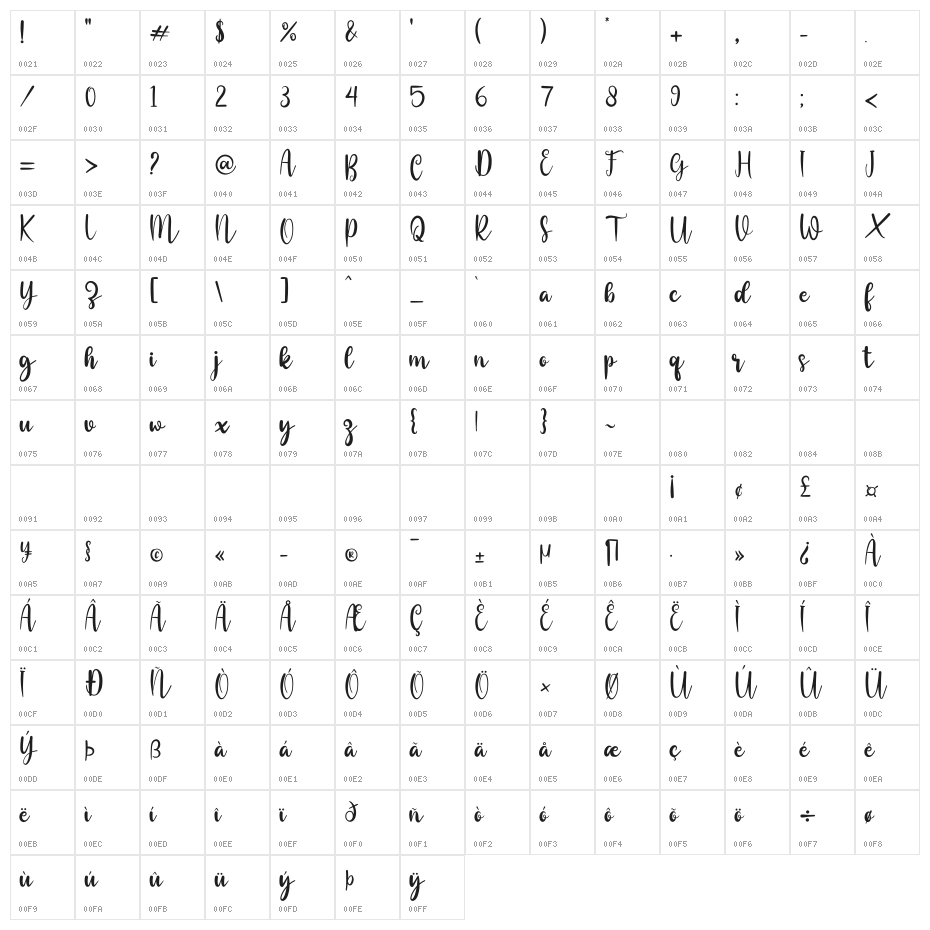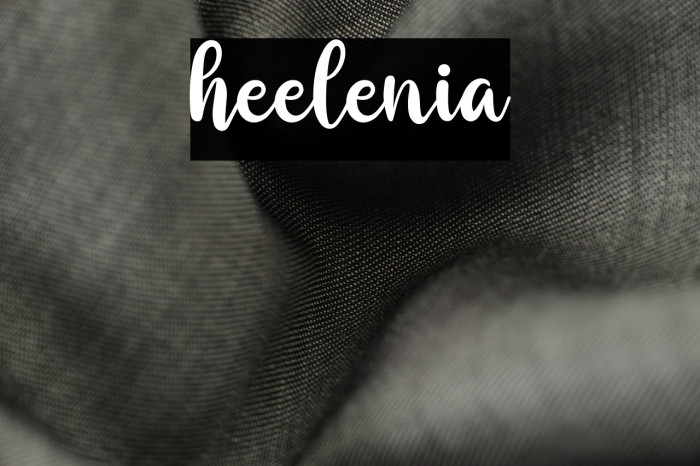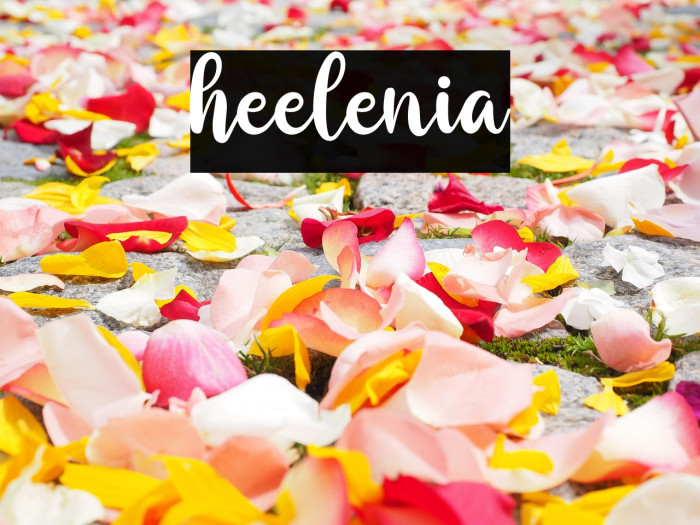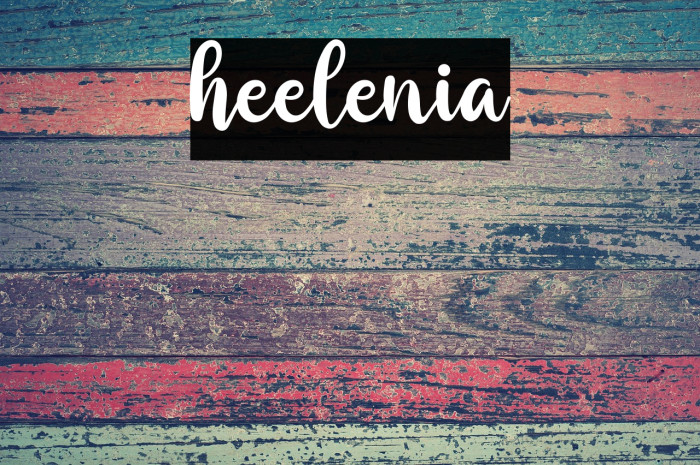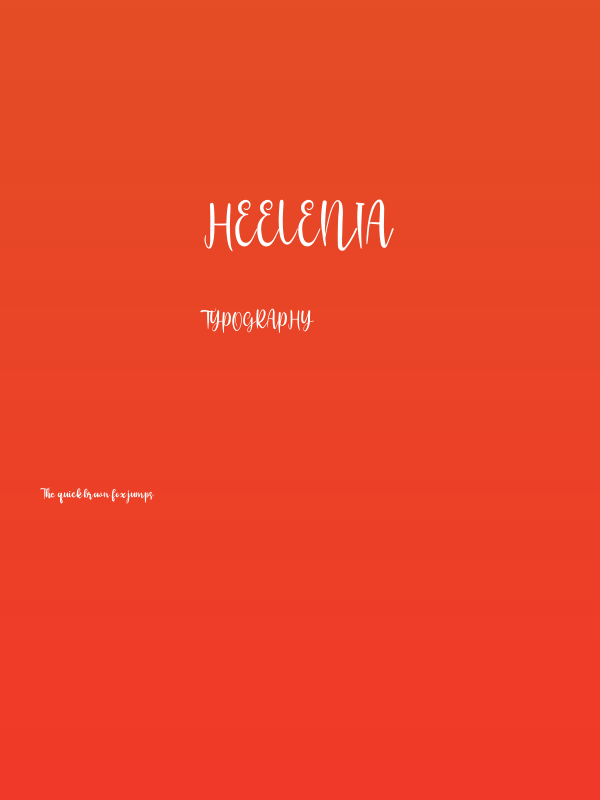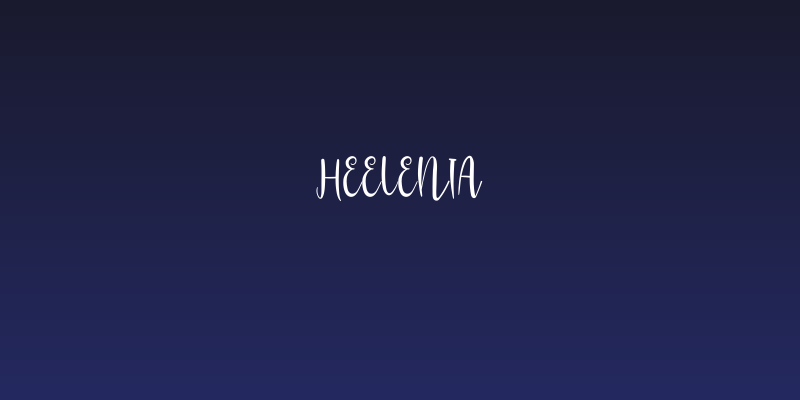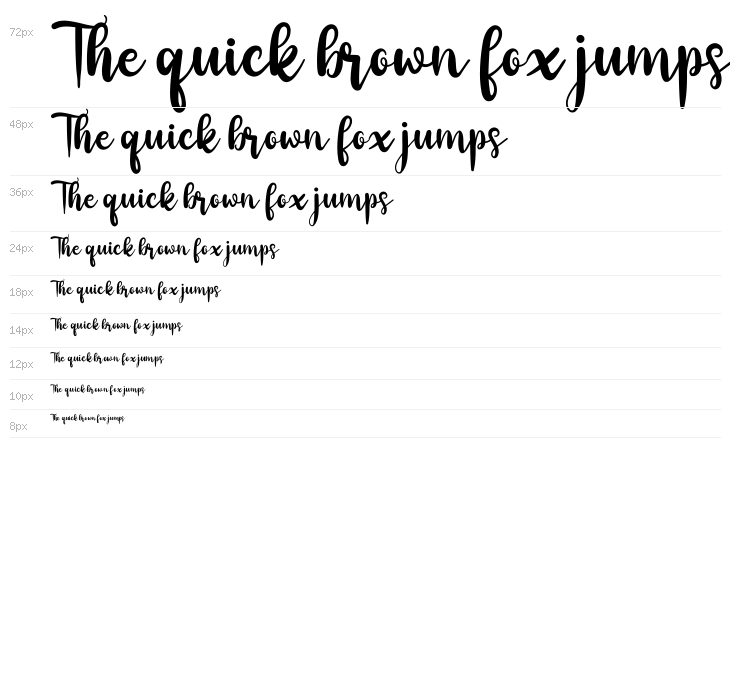
heelenia Font
heelenia Description
This font features a playful and elegant script style with a handwritten appearance. The letters are characterized by smooth, flowing curves and a consistent stroke width that gives it a harmonious look. The uppercase letters are tall and slightly narrow, with distinctive loops and swashes that add a touch of sophistication. The lowercase letters maintain a cohesive style with rounded forms and gentle connections between characters. The numerals are clear and legible, matching the overall aesthetic of the alphabet. Special characters are creatively designed, maintaining the font's whimsical and artistic flair. This font is versatile, suitable for a variety of creative projects.
Use CaseLogos, Invitations, Social Media
Proposed ProjectsIdeal for wedding invitations, greeting cards, branding, and social media graphics.